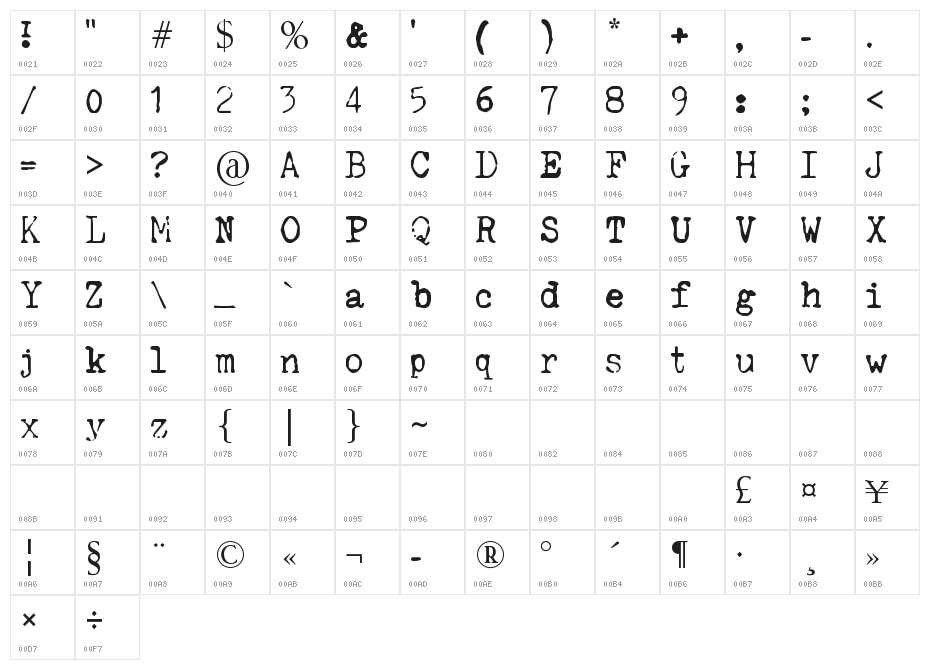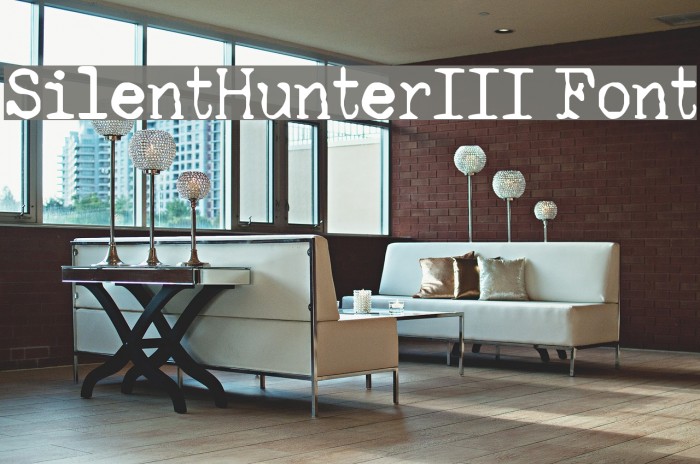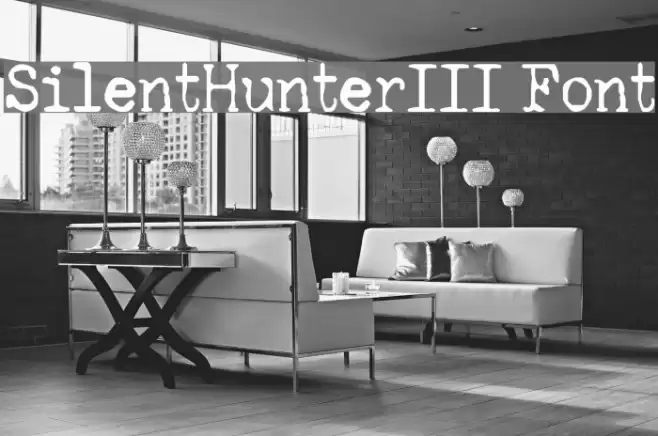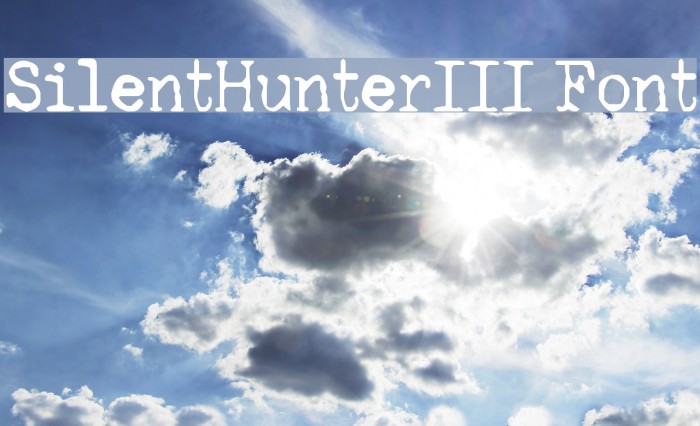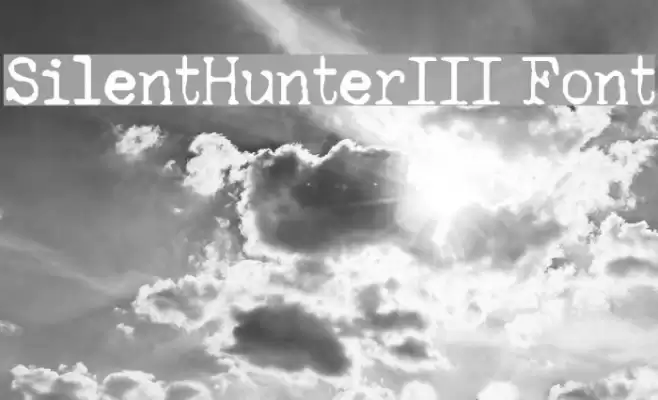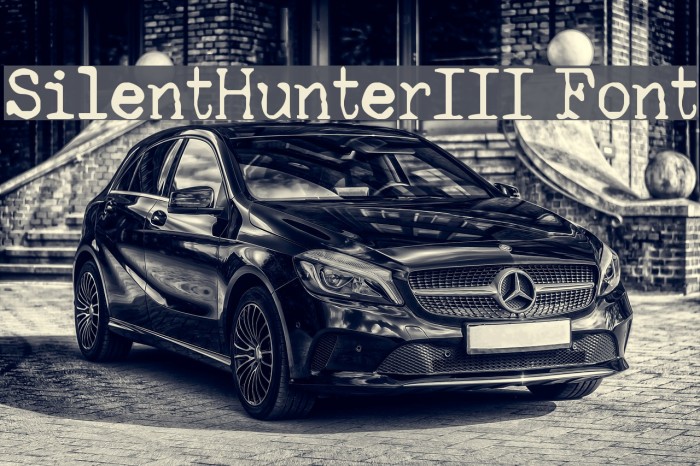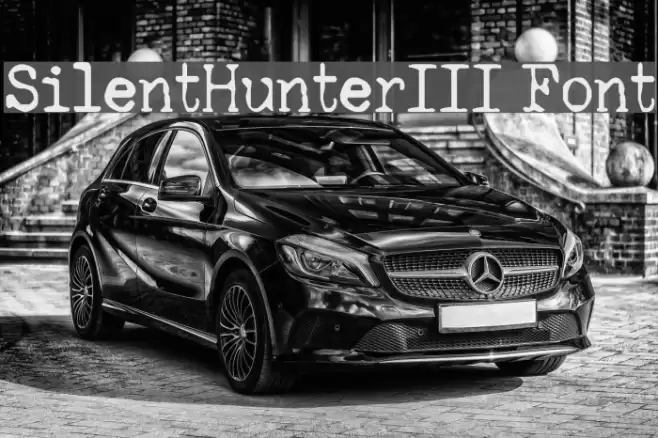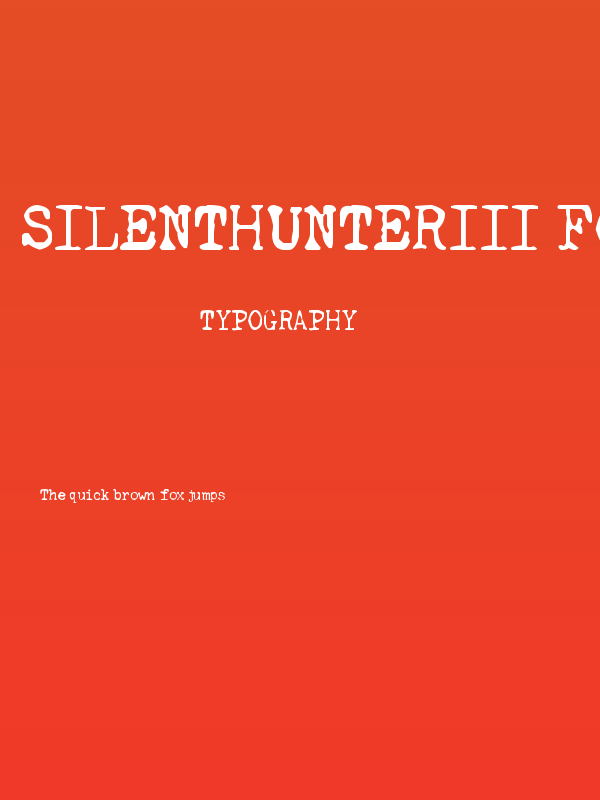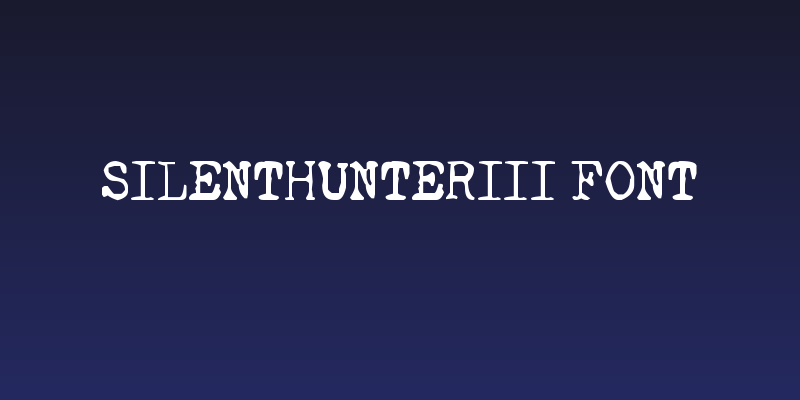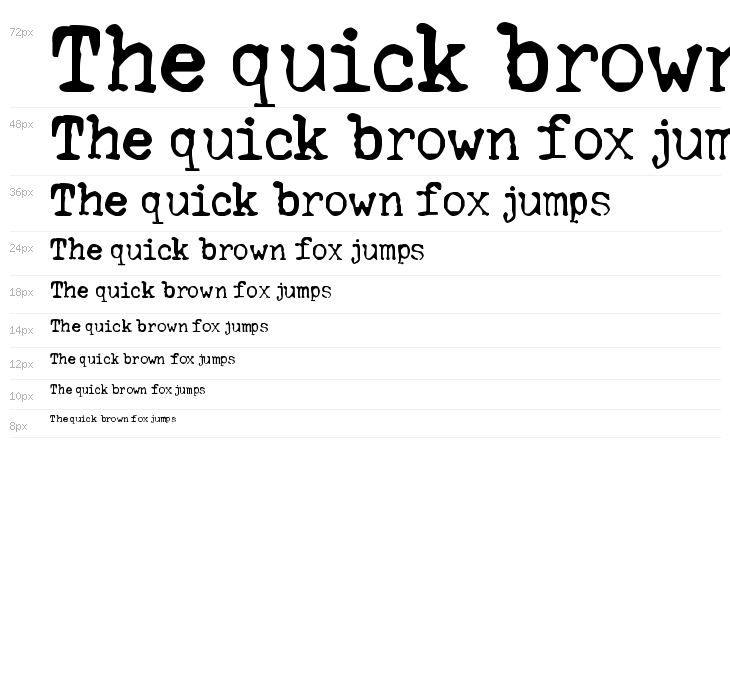
SilentHunterIII Font Font
SilentHunterIII Font Description
This font features a distressed, weathered appearance, reminiscent of typewriter or vintage printing styles. The characters have irregular edges and varying stroke thickness, giving them a hand-crafted, rustic feel. The uppercase letters are bold and prominent, while the lowercase letters maintain a consistent style with slightly more rounded forms. Numbers and special characters follow the same aesthetic, enhancing the overall cohesive look. This font's unique style makes it stand out, ideal for projects that require a touch of nostalgia or a rugged, historical vibe.
| Proposed Projects | Perfect for vintage posters, historical documents, themed events, or any project needing an aged, classic touch. |